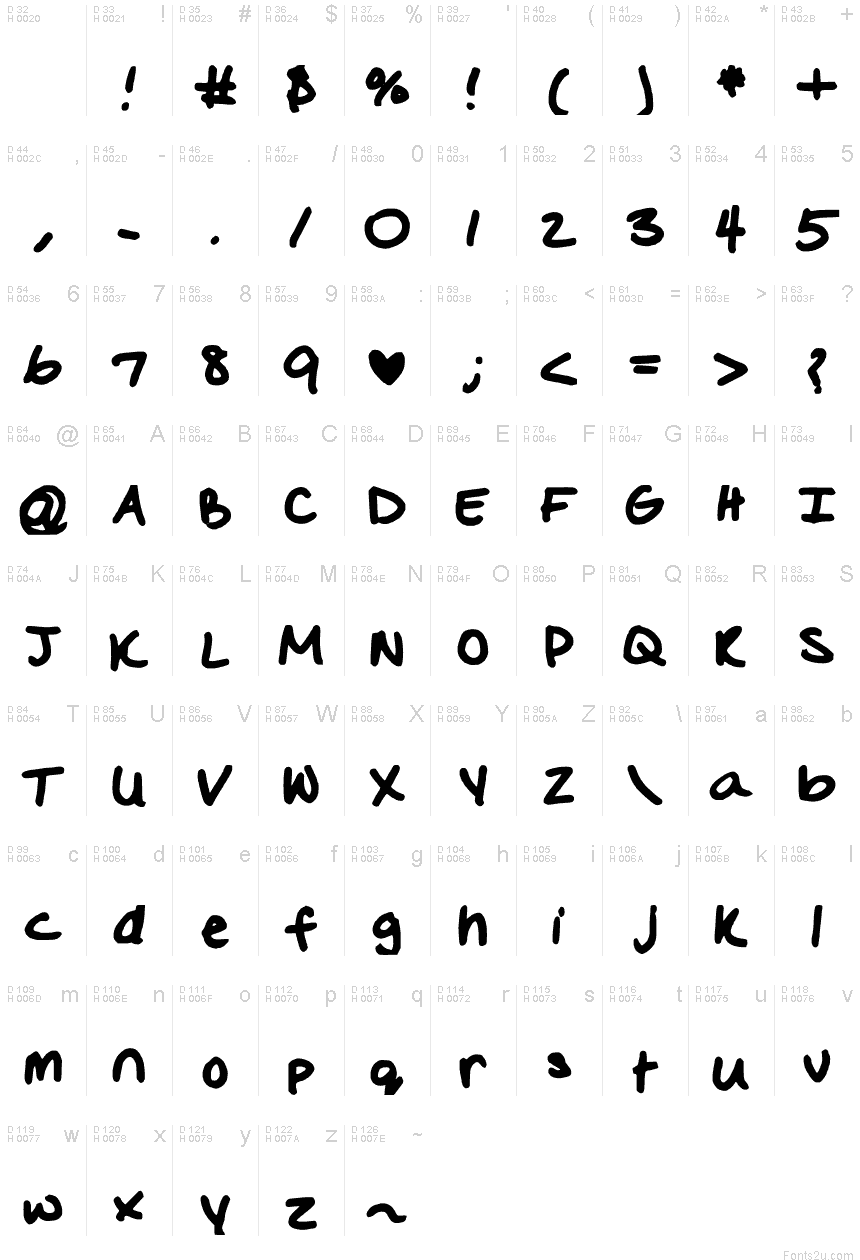
Glacious from MyScriptFont.com is a free handwritten display font with broad, soft-edged strokes and an openly improvised shape. Uneven heights and loose joins recall quick marker writing.
It is especially convincing on children's event posters, where the oversized forms can set a lively, cheerful title. The same informal drawing suits bright snack packaging and playful classroom materials, particularly when the design uses doodles or simple illustrations. Its friendly, unpolished manner is a natural match for young audiences and family-focused projects.
Glacious